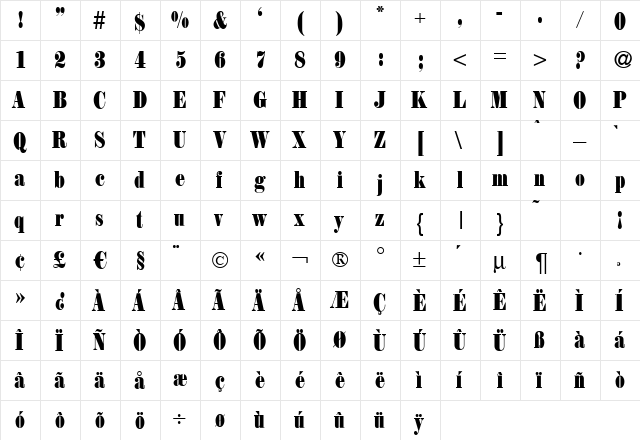
Heron Regular Font Preview
Heron Regular
Design Context for Heron Typeface
Heron offers clean, dependable letterforms without strong stylistic allegiance, making it a practical choice for designers who need flexibility.
Pro Tip: Use Heron in both headline and body roles to test its range before committing to a single application.